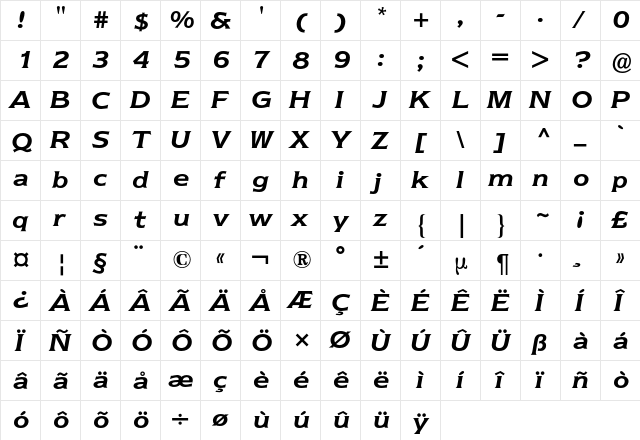
Newtext BQ Regular Font Preview
Newtext BQ Regular
Design Context for Newtext BQ Typeface
Newtext BQ takes a measured approach to typography — its balanced proportions and neutral character make it a reliable workhorse for both digital and print work.